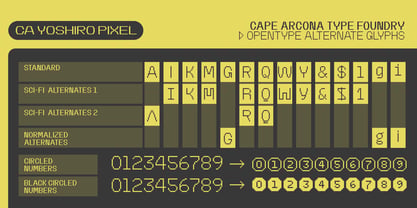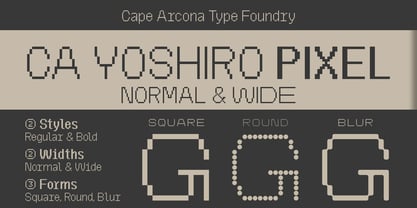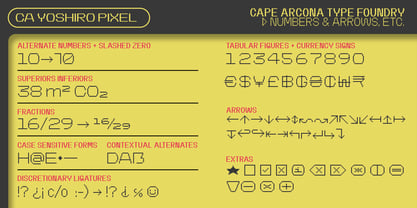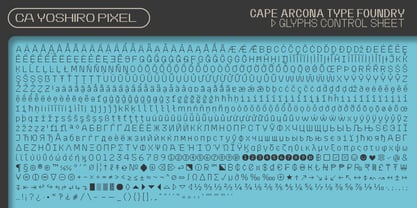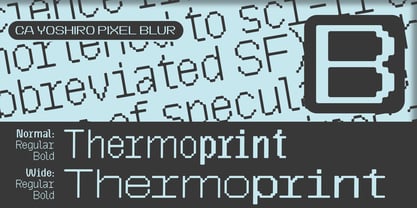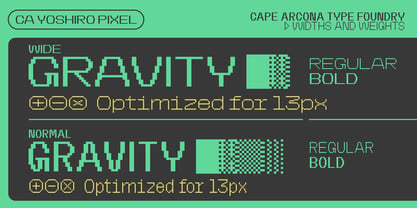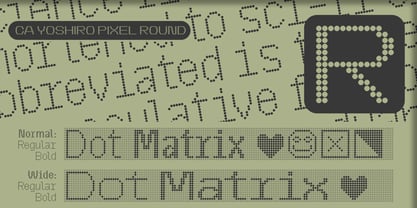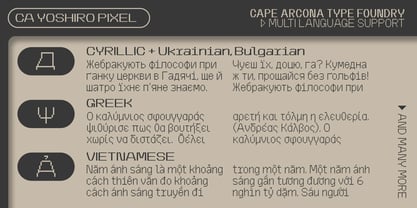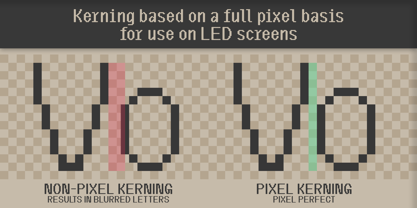
CA Yoshiro Pixel
Die Schriftfamilie CA Yoshiro Pixel wurde von Thomas Schostok entworfen und von Cape Arcona Type Foundry veröffentlicht. CA Yoshiro Pixel enthält 12 Stile und Familienpaketoptionen. Mehr über diese Familie
CA Yoshiro Pixel is a digital-age reinterpretation of the classic CA Yoshiro type family — now rebuilt from the ground up in crisp, modular pixels. It embraces the charm of early computer typography while maintaining the futuristic and technical spirit of the original CA Yoshiro design. The CA Yoshiro Pixel Family consists of three subfamilies, each exploring a different texture of pixel rendering: CA Yoshiro Pixel — pure, sharp-edged pixels for clean, grid-based aesthetics. For razor-sharp results, use sizes in multiples of 13 px (e.g. 13 px, 26 px, 39 px). CA Yoshiro Pixel Blur — mimicking the look of thermal printers, where pixels soften and connect, creating a warm, analog digital feel. CA Yoshiro Pixel Round — featuring rounded pixel dots, reminiscent of vintage dot-matrix printers. Each subfamily offers two widths — Normal and Wide — with Regular and Bold styles in each, providing flexibility across digital and print applications. Like its predecessor, CA Yoshiro Pixel carries a distinctive sci-fi flair, enriched with alternate stylistic sets for futuristic and experimental typography. With over 1000 glyphs, it supports an extensive range of languages, including Cyrillic, Greek, and Vietnamese. Perfect for: retro-futuristic branding, UI design, gaming, pixel art, and display typography where digital nostalgia meets modern precision.